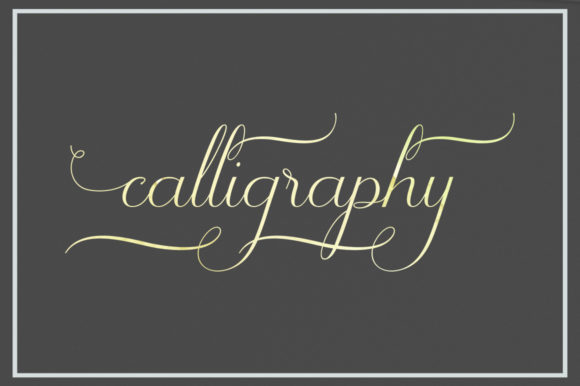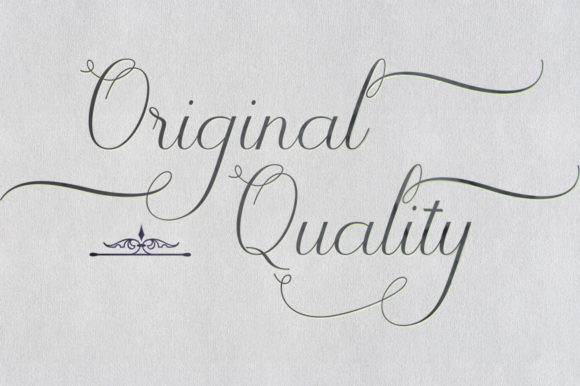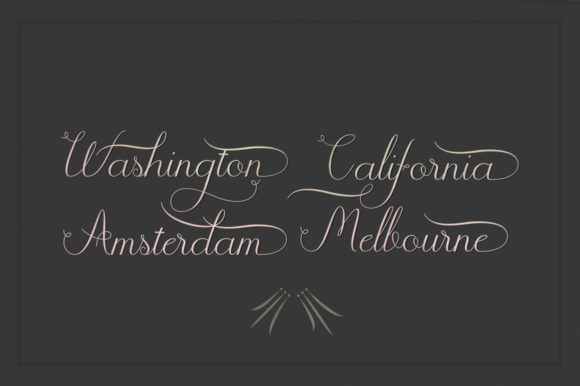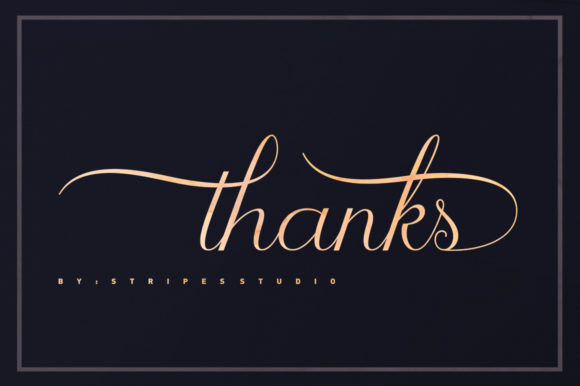
Introduction to Jasmitha Script Font
Have you ever been working on a creative project and suddenly, the perfect font pops into your head? It’s like a match made in heaven – the design comes alive, and you can’t wait to share it with the world. For many designers, this moment is the key to unlocking a truly unique and captivating visual identity. And for those looking to elevate their branding designs, the Jasmitha Script Font is an absolute game-changer.
This modern handwritten script font is not only stylish but also incredibly easy to use, making it a valuable resource for designers of all levels. With its great readability, the Jasmitha Script Font is perfect for creating high-quality designs that are sure to grab attention. Whether you’re working on a personal project or a client’s branding, this font is sure to bring a touch of elegance and sophistication to your work.
Key Features of Jasmitha Script Font
- High-quality design resource ideal for creative projects, such as invitations, logos, and typography-based artwork.
- Unique script font with elegant and sophisticated feel, perfect for adding a touch of luxury to any design.
- Available in a single size, making it easy to scale and adjust to fit different design requirements.
- Resolution is set to 300 DPI, ensuring high-quality output when used in print or digital applications.
- Designed to work well with both light and dark backgrounds, providing versatility in design applications.
Honest Review: Jasmitha Script Font
As a designer, I’m always on the lookout for high-quality design resources to elevate my creative projects. The Jasmitha Script Font is one such find that has left a lasting impression. Here’s my honest review:
- ✨ Beautiful, elegant script design that adds a touch of sophistication to any project
- ✨ High quality and crisp, making it perfect for digital and print media
- ⚠️ Limited character set, which may not be suitable for extensive text-based projects
- ⚠️ Not ideal for bold or large-scale text applications due to its delicate nature
Overall, I’m impressed with the Jasmitha Script Font’s elegance and sophistication. While it may have some limitations, its beauty and high quality make it a valuable addition to any designer’s toolkit. If you’re looking for a design resource to elevate your creative project, I highly recommend giving it a try.
The Jasmitha Script Font is ideal for various design projects such as wedding invitations, baby shower invitations, and social media graphics. It’s also perfect for branding materials, marketing collateral, and business documents.